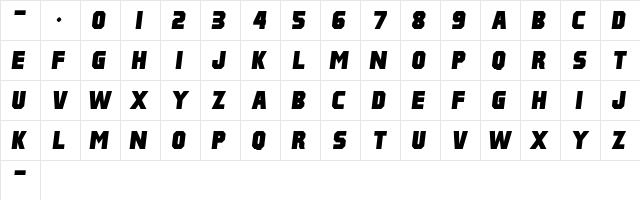
Pulp Fiction M54 Italic
| Foundry | M54 (justme54s) |
| Designer | Mohammed Rahman |
Design Context for Pulp Fiction M54 Typeface
Pulp Fiction M54 takes a measured approach to typography — its balanced proportions and neutral character make it a reliable workhorse for both digital and print work. Its italic angle brings a sense of urgency and motion to the letterforms.
Pro Tip: Use Pulp Fiction M54 for emphasis, pull quotes, and subheadings where its slanted energy can add rhythm to the layout.